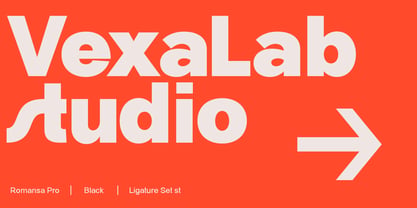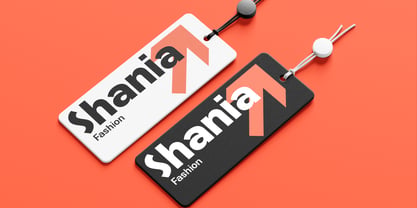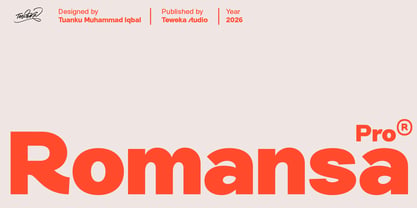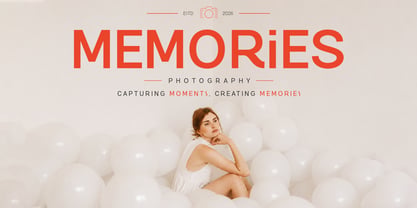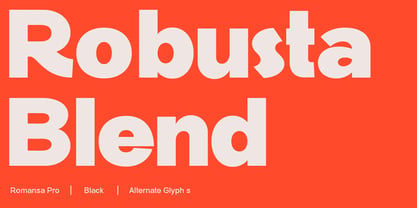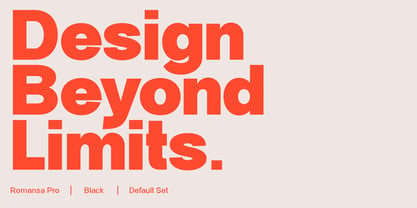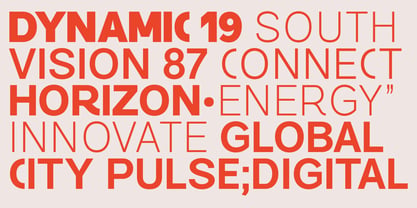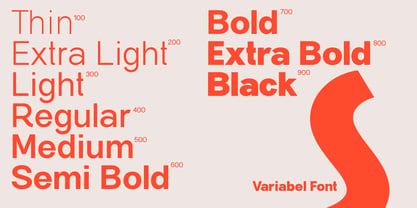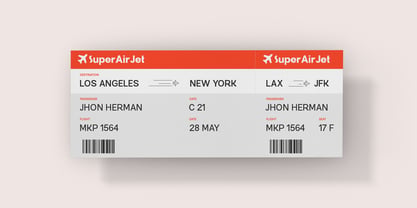
Romansa Pro
by Teweka
The Romansa Pro Font Family was designed by Tuanku Muhammad Iqbal and published by Teweka. Romansa Pro contains 9 styles and family package options. More about this family
Romansa Pro is a modern sans-serif typeface family crafted for clarity, versatility, and contemporary design. Built with clean geometric forms and balanced proportions, it offers excellent readability across both digital and print applications. With a complete range of weights from Thin to Black, Romansa Pro provides the flexibility needed for everything from elegant branding and editorial layouts to bold headlines and user interfaces. Its refined yet approachable character makes it an ideal choice for designers seeking a professional and timeless sans-serif family.
Designers: Tuanku Muhammad Iqbal
Foundry: Teweka